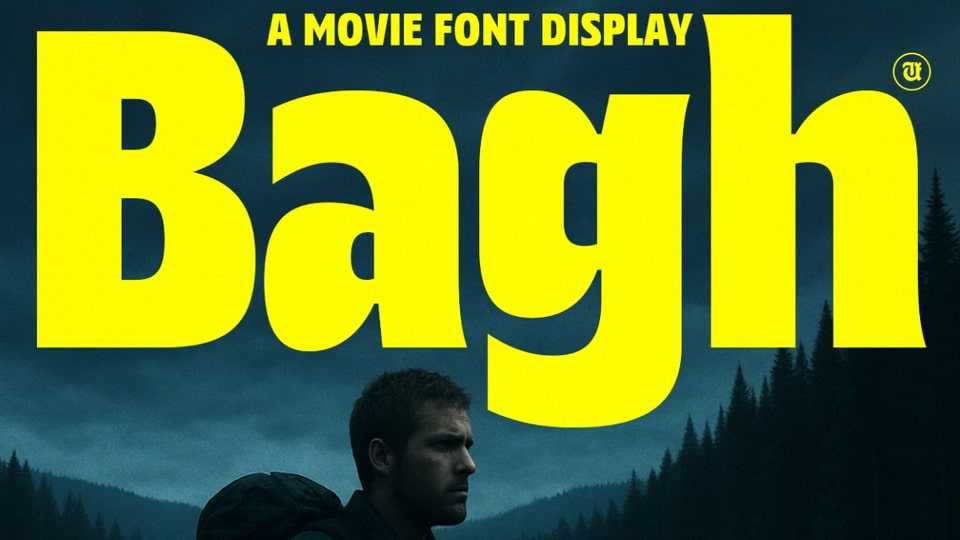
Download UT Bagh font, a neo-grotesk sans-serif built with the big screen in mind. It’s clean, modern, and confident—crafted to be just as striking on a four-story movie poster.